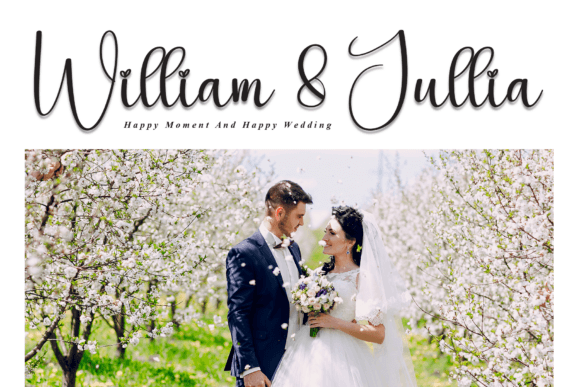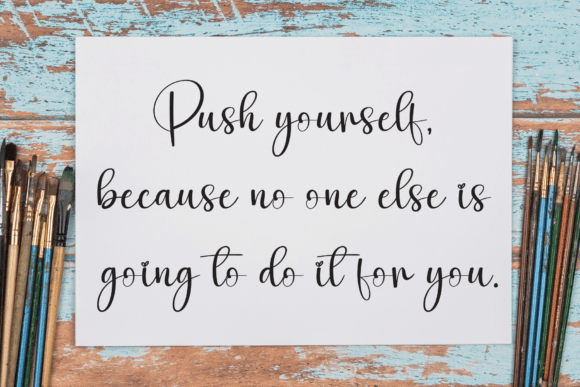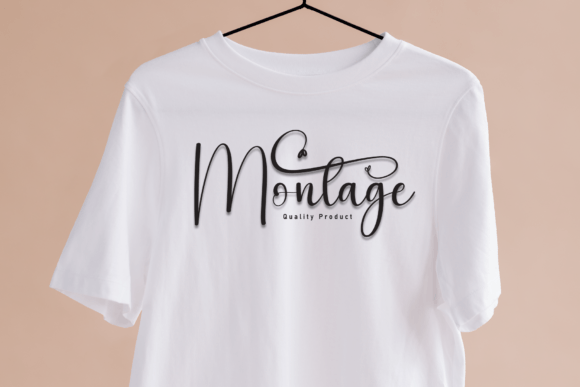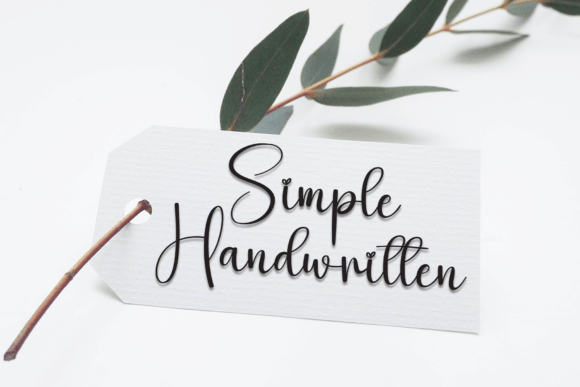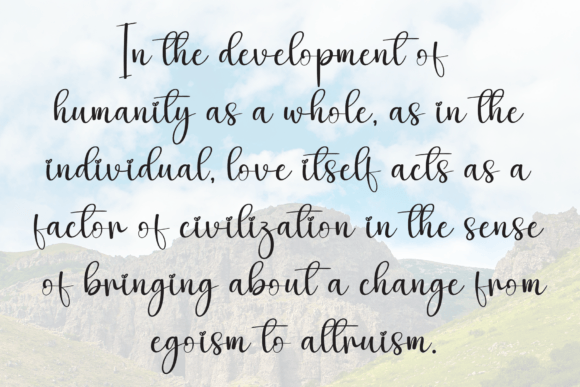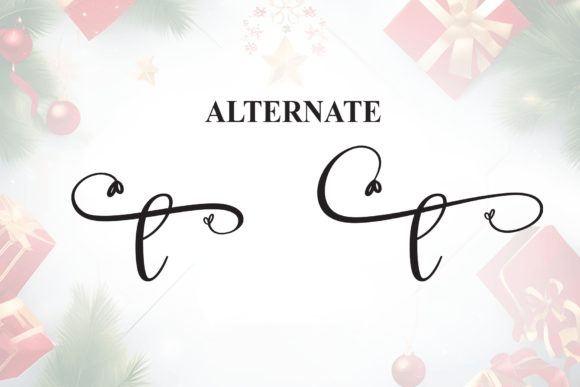
Unleash the Magic of the Season with Christmas Poster Font
Have you ever stumbled upon a beautiful, handwritten font that instantly sparks a wave of creative ideas? That’s exactly what happened to many designers when they discovered the enchanting Christmas Poster Font. Its delicate, elegant, and flowing characters transport us to a world of festive wonder, perfect for capturing the essence of the holiday season.
As a versatile font, Christmas Poster Font is designed to add a touch of sophistication and whimsy to a wide range of designs. Whether you’re crafting a Christmas card, creating a festive advertisement, or designing a holiday-themed website, this font is sure to bring your ideas to life. Its beauty and balance make it a valuable asset for designers looking to add a personal touch to their projects.
Christmas Poster Font Key Features
- Font Family: A custom-designed font for Christmas-themed posters, including uppercase and lowercase letters, numbers, and special characters.
- Unique Characteristics: The font features a festive, handwritten style with intricate details and ornaments, adding a touch of elegance to Christmas-themed designs.
- Font Styles: Includes regular, bold, italic, and bold italic styles for added flexibility in design applications.
Review of Christmas Poster Font
Overall, I think Christmas Poster Font is a great choice for festive projects. The ✨ whimsical feel of this font makes it perfect for holiday-themed posters, greeting cards, and other designs.
The font has a nice balance of playfulness and elegance, which makes it suitable for both children’s projects and more sophisticated designs. The ✨ high level of customization options also allows designers to adjust the font to fit their specific needs.
- ✨ Whimsical and elegant design
- ✨ High level of customization options
- ✨ Perfect for holiday-themed projects
- ✨ Suitable for both children’s and sophisticated designs
Overall, I would give Christmas Poster Font 4 out of 5 stars. While it has some limitations, its unique design and high level of customization options make it a great choice for designers looking to add some holiday cheer to their projects.
The Christmas Poster Font is perfect for:
Creating festive holiday posters and flyers.
Designing Christmas card templates.
Making holiday-themed social media graphics.